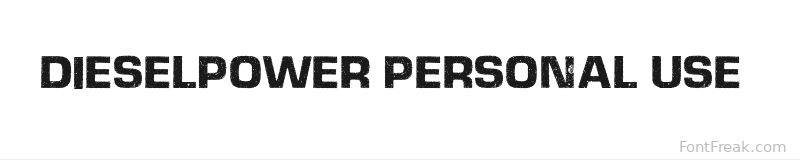
DIESELPOWER PERSONAL USE
DIESELPOWER PERSONAL USE is a striking display font crafted by Billy Argel Fonts, embodying a bold and rugged aesthetic that instantly captures attention. This font falls within the display category, making it ideal for eye-catching headlines and promotional materials. Its visual characteristics include a heavy stroke weight that conveys strength and stability, combined with a slightly distressed texture that adds a unique, vintage charm. The letterforms are well-spaced, allowing for clear legibility while maintaining an assertive presence.
This font is particularly well-suited for a variety of creative applications. It shines in contexts such as movie posters where a dramatic impact is desired, bold branding for adventurous small businesses, merchandise designs that aim for a rugged appeal, and even event flyers that need to stand out. Content creators will find that the DIESELPOWER PERSONAL USE font free download offers versatility across digital and print platforms, providing a distinct edge to their projects.
Targeted towards graphic designers, small business owners, and content creators, this font resonates with those looking to evoke a sense of strength and authenticity in their work. Its robust design elements make it a go-to choice for anyone wanting to make a memorable impression.
What sets the DIESELPOWER PERSONAL USE font apart is its ability to blend boldness with character, making it not just another display font but a statement piece. The combination of its heavy strokes and distressed style creates a visually dynamic text that commands attention and conveys a sense of individuality. Whether you're designing for print or digital media, this font will elevate your work, ensuring it stands out in any setting.